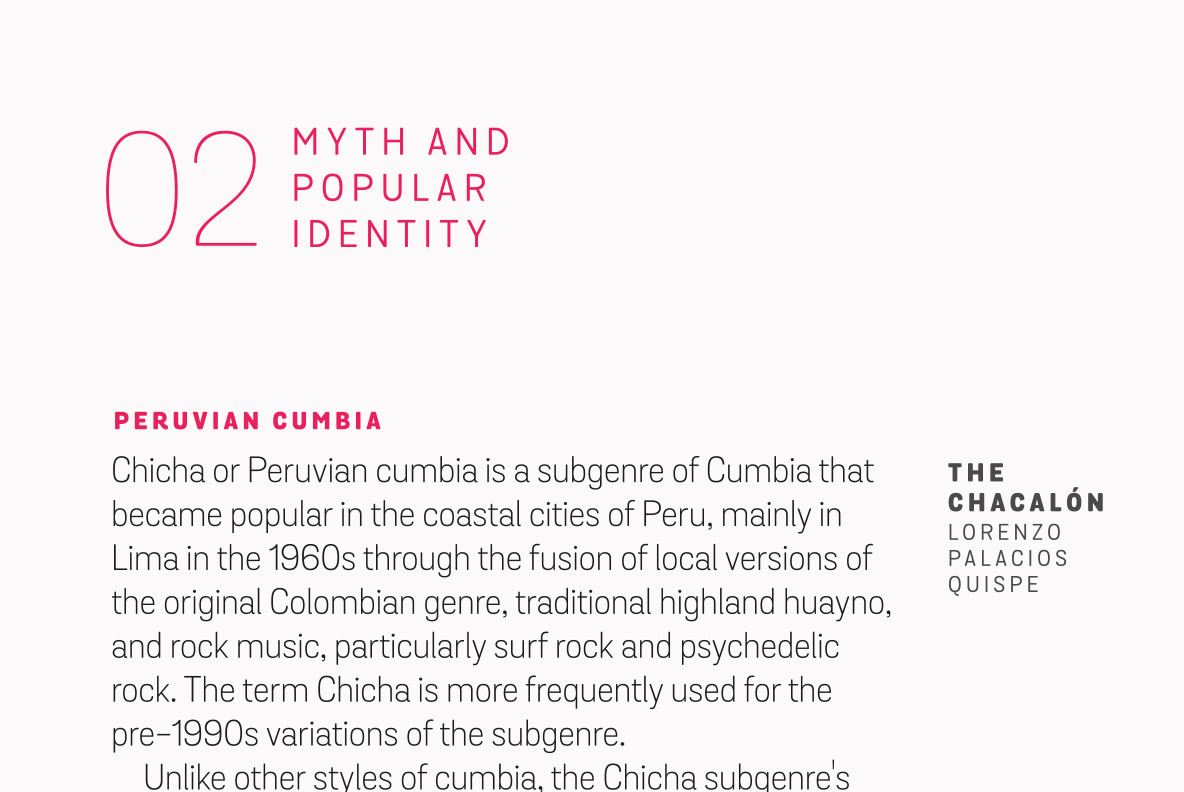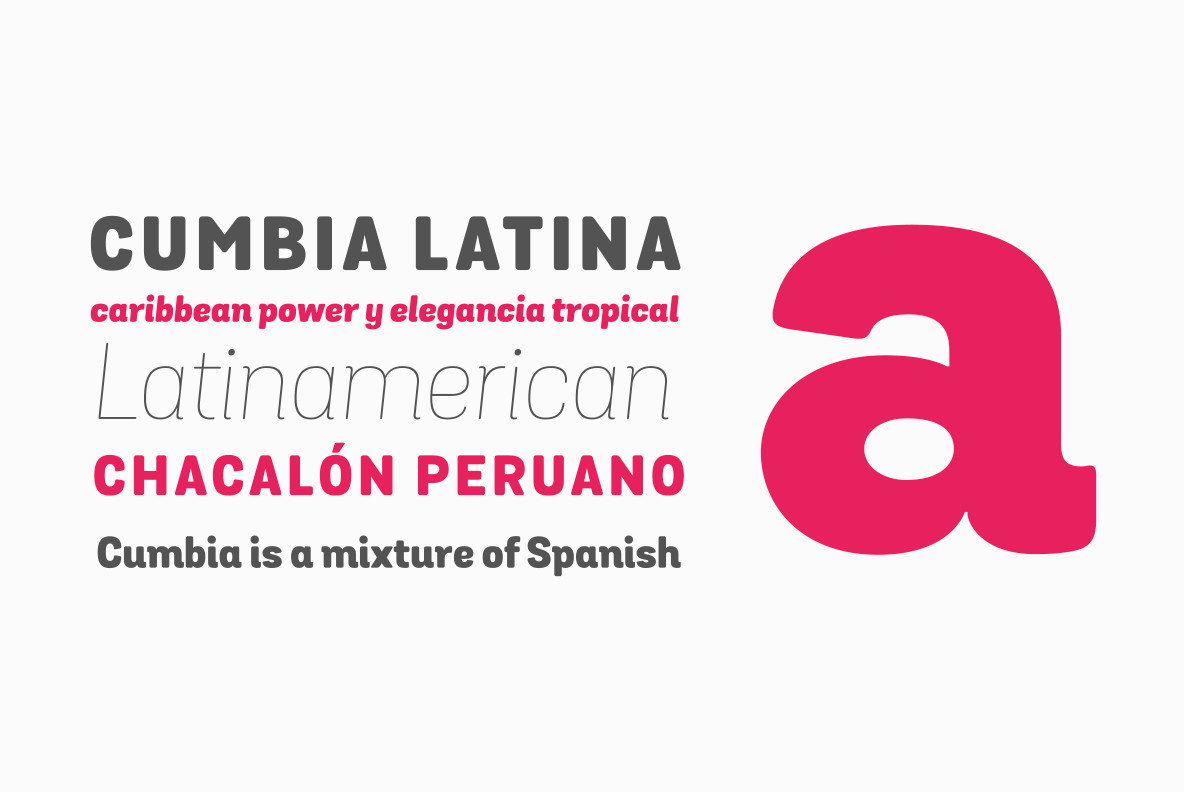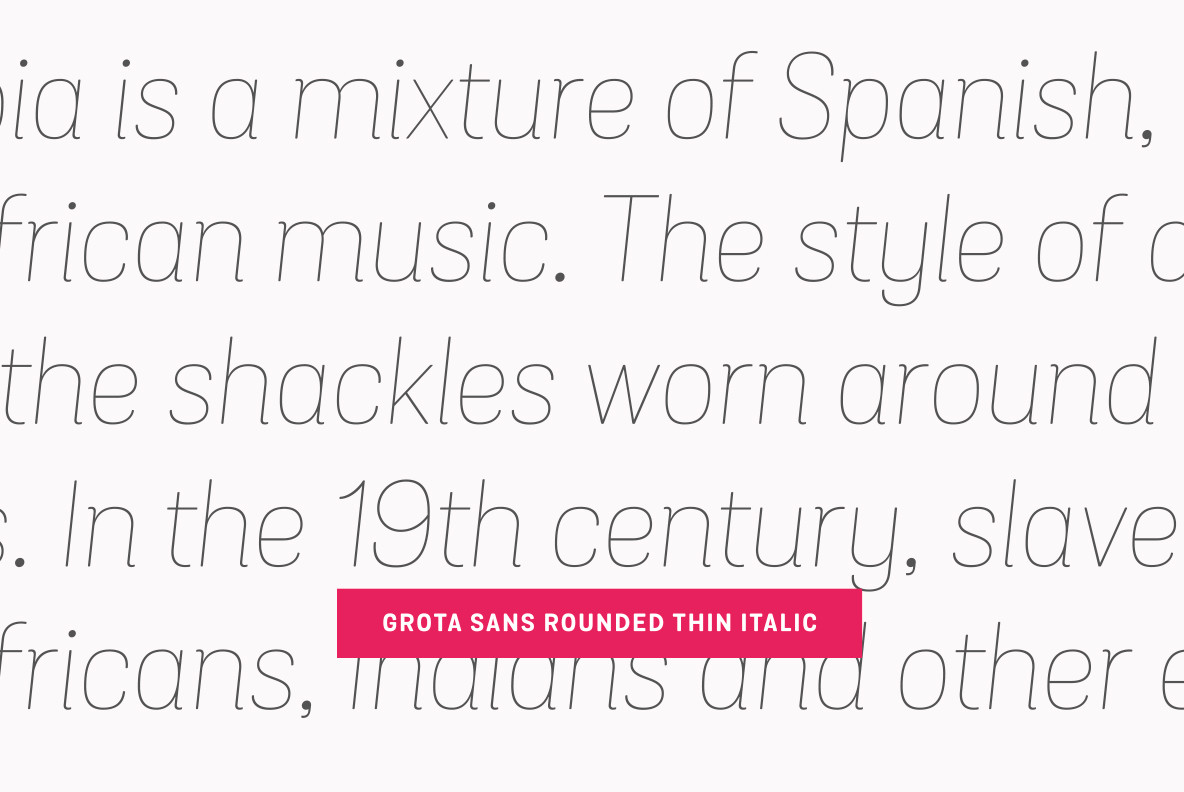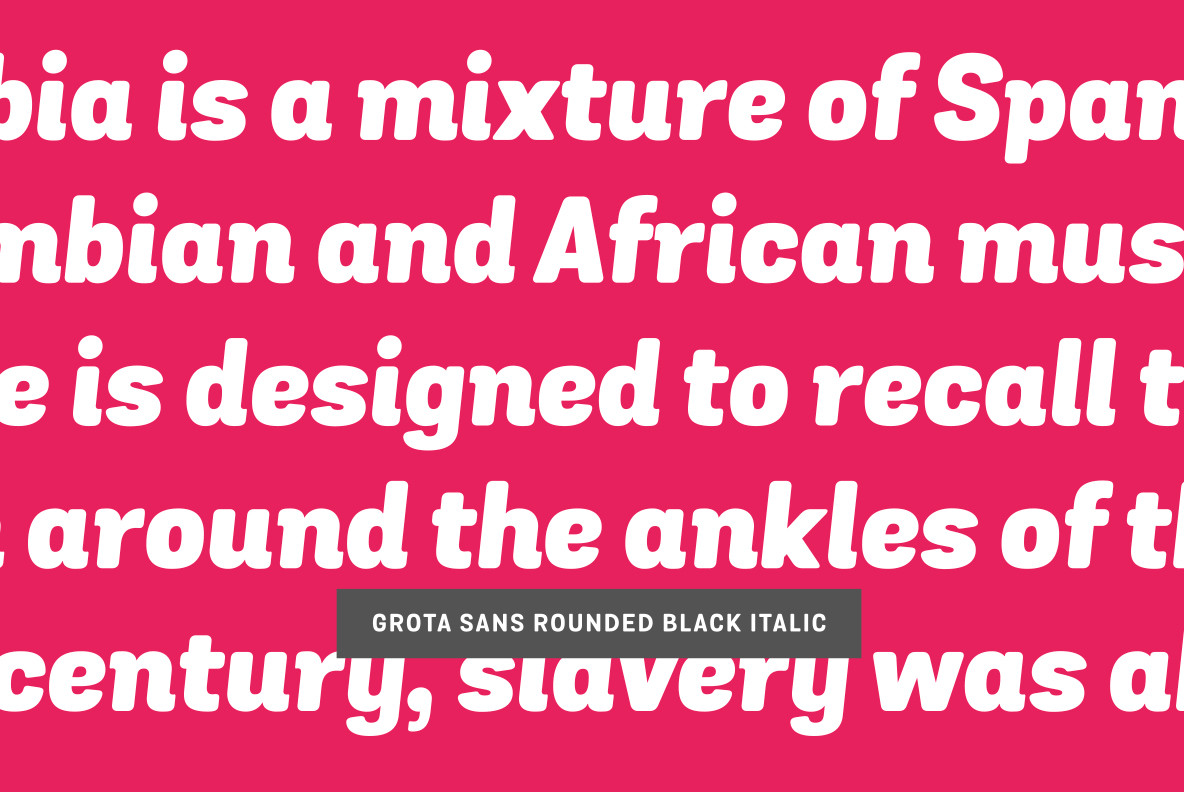
Grota Sans Rounded Font
Grota is back in its new Sans and Rounded versions. The complete family consists of 40 fonts, 10 different weights, cursives and an alt version.
Grota Sans Rounded, designed by Eli Hernández and Daniel Hernández, is a grotesque font with Latin spirit. This type accompanies Grota Sans and Grota Unicase. It’s ideal for logos, brands, books, headlines, etc.